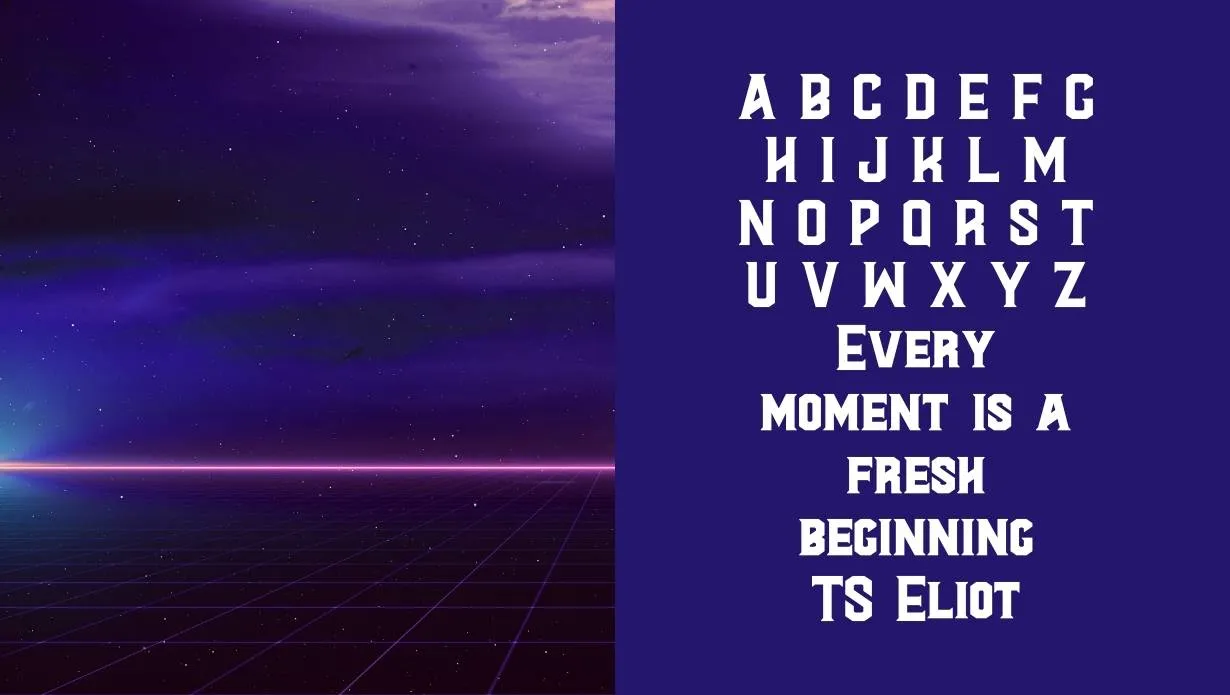
Al Valenciaga Font is like the cool swagger of a trendsetting friend. Each letter exudes a hip-hop style as if they’ve stepped out of a fashion magazine. When you use Al Valenciaga Font, your writing becomes like a rap verse, making every word feel rhythmic and fashionable.
It’s like the confident stride of a trendsetter, giving your words a street-savvy and stylish vibe. Choose Al Valenciaga Font when you want your writing to have the trendy flair of a fashion icon.